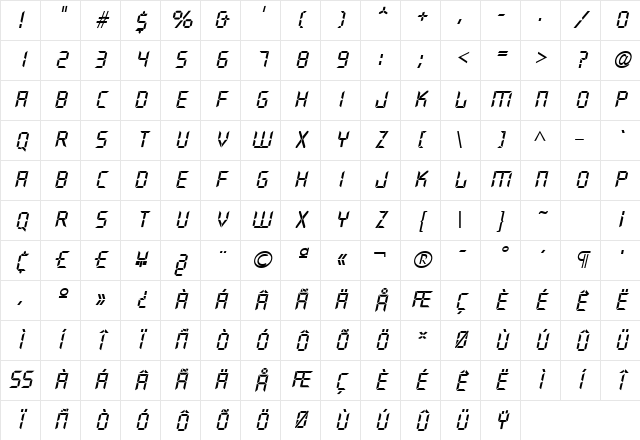
FutyBecker Italic
Design Context for FutyBecker
FutyBecker is a composed and adaptable typeface that performs quietly and consistently across a wide range of design contexts. The slanted form adds forward momentum and visual energy.